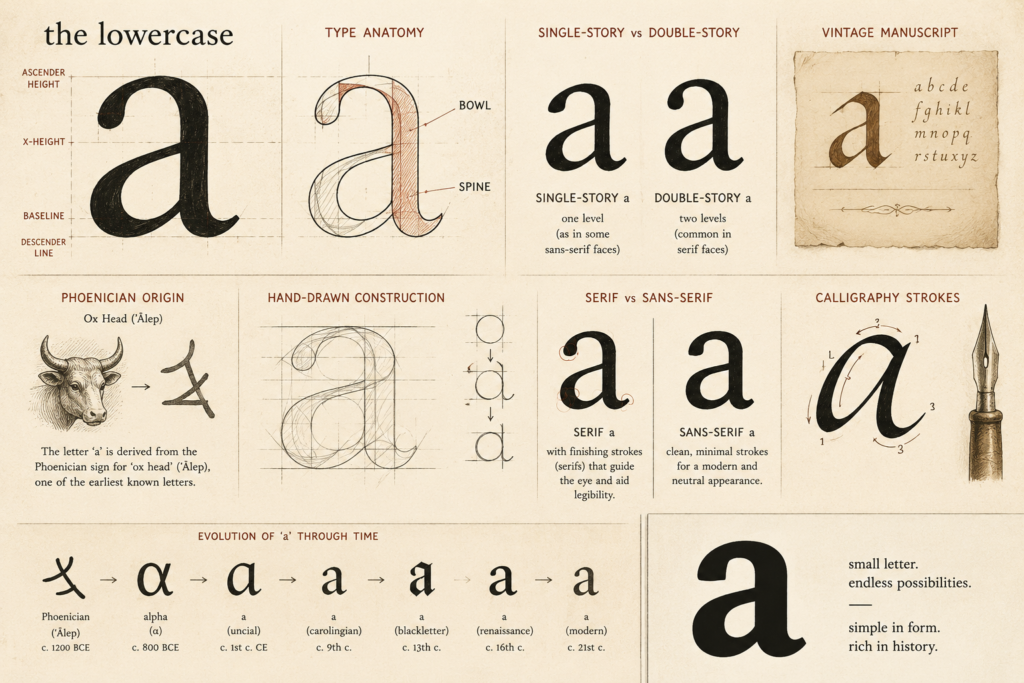
If you’ve ever sat down to design a typeface, you already know the dirty secret of type design: everything starts with “a.” Not because it’s the first letter of the alphabet β that’s almost a coincidence β but because “a” is one of the hardest, most revealing letters in the entire Latin alphabet. Get “a” right, and the rest of your lowercase set tends to fall into place. Get it wrong, and no amount of kerning will save you.
This is the first entry in a series where we’re going to walk through every glyph a font needs β lowercase, uppercase, punctuation, and multilingual characters β one at a time. We’re starting here, with the letter that terrifies type designers most.
A Short History of “a”
The letter “a” has one of the longest, strangest journeys of any character we use today. It traces back to a Phoenician letter called aleph, which meant “ox,” and if you tilt your head and squint at the old Phoenician glyph, you can sort of see two horns above a triangular face. When the Greeks adopted it, they flipped it around and renamed it alpha β and that’s where our word “alphabet” comes from, alpha plus beta.
By the time it reached Rome, “a” had settled into something close to the capital “A” we recognize now: two diagonal strokes meeting at a peak, joined by a crossbar. That’s the uppercase story. Lowercase “a” took a completely different road. It didn’t really exist yet β Roman inscriptions were all capitals. The rounded, single-story lowercase “a” we associate with handwriting emerged much later, during the medieval period, as scribes writing quickly with a pen naturally rounded out the letter’s sharp angles into a bowl shape.
Then something interesting happened during the Carolingian Renaissance, around the 8th and 9th centuries. Scribes under Charlemagne standardized a clear, legible minuscule script, and the two-story “a” β the one with a bowl and a little hook or “ear” on top β became the dominant form. That two-story “a” is the one you’re reading right now in this sentence. It survived the invention of movable type in the 15th century and became the default in most serif and sans-serif fonts ever since.
Anatomy of a Lowercase “a”
Type designers talk about letters almost like anatomists talk about bodies, and “a” has more named parts than you’d expect for such a small shape.
Most lowercase a’s in print are what’s called double-story (or two-story): they have a bowl at the bottom and a smaller loop or arch on top, connected by a short vertical stem. The bottom bowl is the rounded enclosed part. The upper portion often includes a small curved stroke called the ear, which sits at the top right in some designs. There’s also the spine β the curved backbone that gives the letter its S-like flow when you trace it from top to bottom.
Then there’s the single-story a, the simpler circle-with-a-tail shape that’s closer to handwriting β the kind kids are taught to write first. You’ll see this version in many geometric sans-serifs and in most casual, handwriting-style, or signature fonts.
The choice between single-story and double-story isn’t just aesthetic. Double-story a’s are generally considered more legible in long passages of body text because the shape is more distinct from other letters like “o” or “e.” Single-story a’s feel friendlier and more casual, which is exactly why they show up so often in script and handwriting fonts β they mimic the natural, unfussy way people actually write by hand.
Designing the Letter From Scratch
If you’re building a typeface and you sit down to draw “a” first, here’s roughly what that process looks like.
You start with the bowl, because it sets the letter’s basic width and weight. Too wide, and the letter feels bloated; too narrow, and it starts to look like a lowercase “o” that got into an accident. Designers usually draw the bowl slightly overshooting the baseline and x-height β rounded shapes need to poke a hair beyond the straight guidelines, or they look optically smaller than the straight-sided letters around them. This is called overshoot, and it’s one of those invisible tricks that makes text look evenly weighted even though the actual measurements aren’t identical.
Next comes the spine and the top arch, if you’re doing a double-story design. This is the fussiest part. The curve has to flow naturally out of the bowl without creating an awkward pinch point where the two strokes meet β that junction is one of the most scrutinized spots in the whole letter. Too tight, and ink (digital or physical) clogs up at small sizes. Too loose, and the letter looks disconnected, like two separate shapes taped together.
Then the designer checks how “a” behaves next to other letters. Since it’s often used as a reference letter for setting the rhythm of the whole lowercase set, “a” typically gets drawn early, then revisited constantly as “n,” “o,” “e,” and others get built around it, making sure stroke weights, contrast, and overall texture stay consistent.
Unique Facts About “a”
A few things worth knowing: “a” is the most frequently used letter in the English language, edging out “e” in some counts depending on the corpus, though it’s close. In most Latin-based multilingual fonts, “a” also needs to support a surprising number of diacritic variants β Γ‘, Γ , Γ’, Γ€, Γ£, Γ₯, Δ β each requiring careful placement so the accent doesn’t collide with ascenders in the line above.
Summary
The lowercase “a” carries more design history in its curves than almost any other letter β from an ox’s head in Phoenician script, through Roman capitals, into the rounded medieval minuscule, and finally into the double-story and single-story forms we choose between today. For type designers, it’s often the first letter drawn and the last one perfected, because it sets the tone for everything that follows in a typeface. Next up in this series: lowercase “b” β the letter that quietly borrows more from “a” than you’d think.